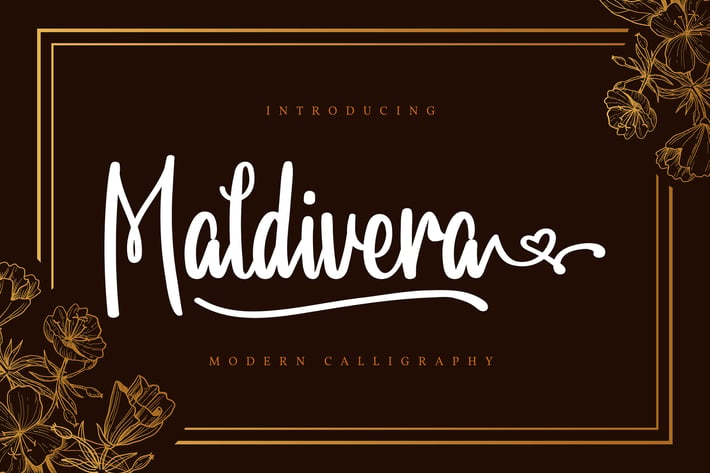
Maldivera | Modern Calligraphy Font
Maldivera | Modern Calligraphy Font with a calligraphy style, So beautiful on invitation like greeting cards, branding materials, business cards, quotes, posters, and more!